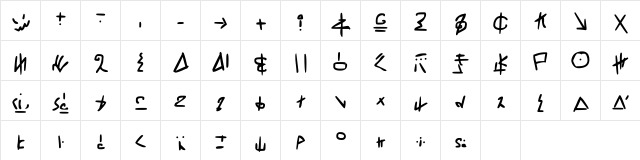
Rivworld Font Regular
Design Context for Rivworld Font Typeface
Rivworld Font is a composed and adaptable typeface that performs quietly and consistently across a wide range of design contexts.